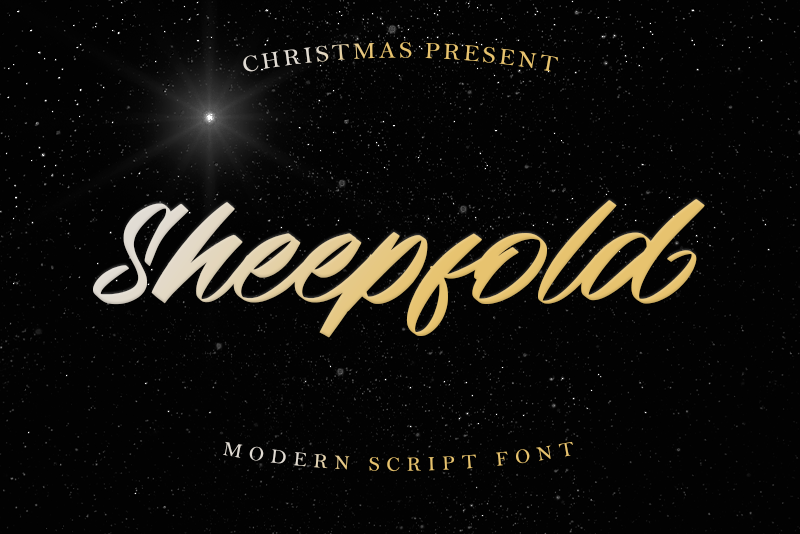
Sheepfold
Discover the artistry of a natural handwritten font that exudes elegance and sophistication. If you're looking for a typeface that adds a touch of uniqueness to your designs, look no further than this stunning brush-textured font.
With its organic feel and subtle texture, this font is perfect for creating original and outstanding designs that stand out from the crowd. The PUA-encoded design means you have full access to all the glyphs and swashes at your fingertips, allowing for endless creative possibilities.
Whether you're a designer seeking a distinctive font for branding, publishing, or web design, or an artist looking to add a personal touch to your illustrations or graphics, this font is sure to impress. Its natural handwritten style and beautiful brush texture evoke a sense of warmth and personality, making it perfect for use in a wide range of applications.
From formal invitations to casual social media posts, this font's versatility and charm make it an excellent choice for anyone looking to add some flair to their designs. With its unique combination of elegance and playfulness, this font is sure to delight and inspire.